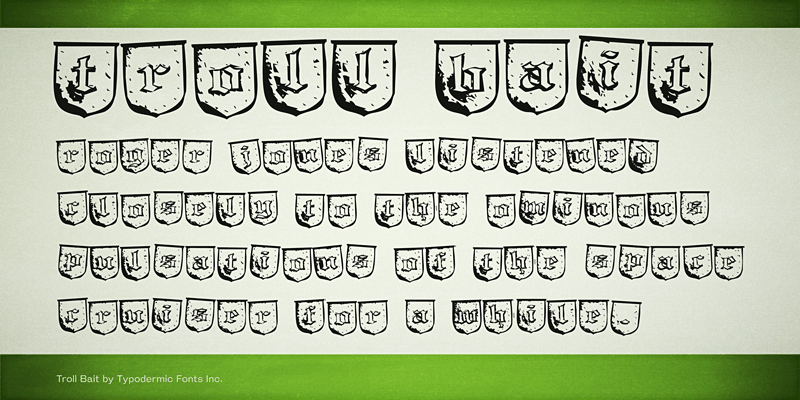
Troll Bait was designed to cause tabletop role playing gamers to squeal with delight but so far has not done so. This font includes a license that allows free commercial use: sometimes referred to as a desktop license. This allows you to install the font on a computer and use it to create posters, web graphics, game graphics, t-shirts, videos, signs, logos and more. Read the license agreement for details. If you'd like to embed this font in an app, ebook, on the web or anything that's not covered by the desktop license agreement, visit the link below. You'll find distributors who offer different types of licenses or you can contact me for help. http://typodermicfonts.com/troll-bait/ |